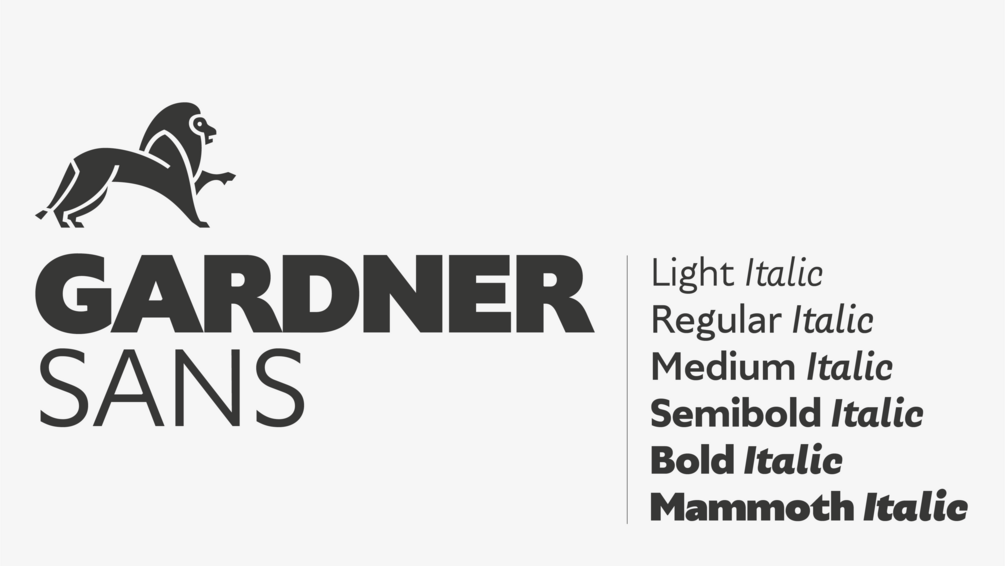
Gardner Sans
Gardner Sans is a humanist sans serif with a range of weights, italics, small caps stylistics alternates and a set of decorative ornaments. The light and regular faces work at smaller sizes and the heavier weights are good for display lettering.
It is inspired by a few historical sources including Stephenson Blakes' Granby, Gill Sans, as well as some old hand-done lettering for sales tickets. The name (and the basis for the small caps) derives in-particular from the Roy Gardner collection of sales tickets from early 20th century that can be found on spitalfieldslife.com The heavier weights were particularly influenced by a later cut of Gill Sans, Extra Bold 321. The italic is more of a contemporary mix of humanist styles.
Designed by Lewis McGuffie.